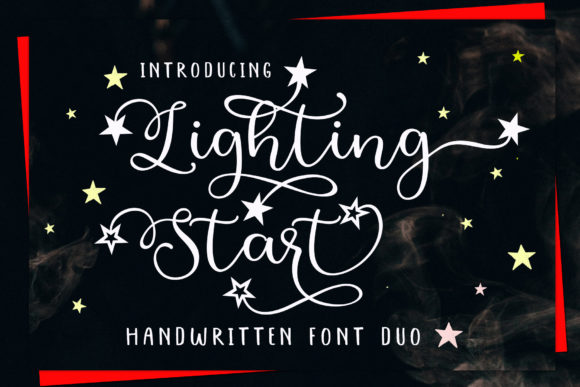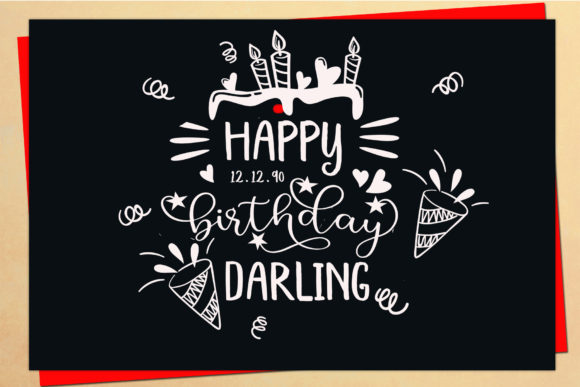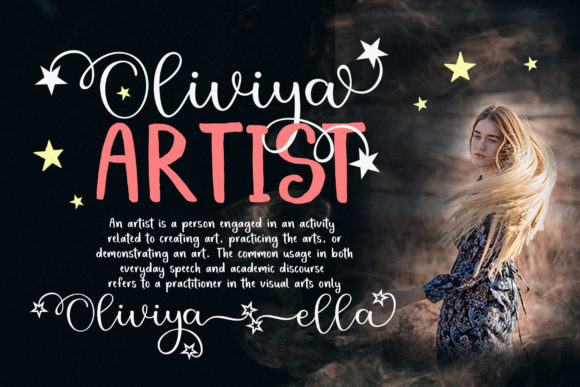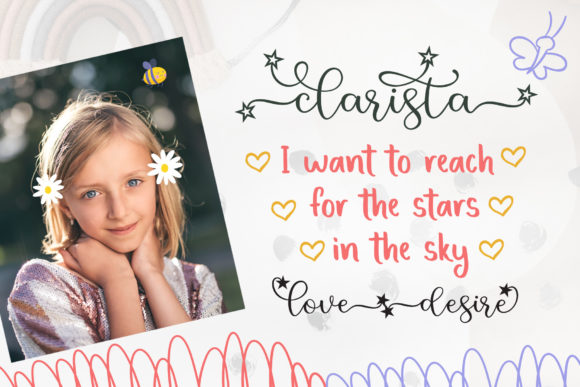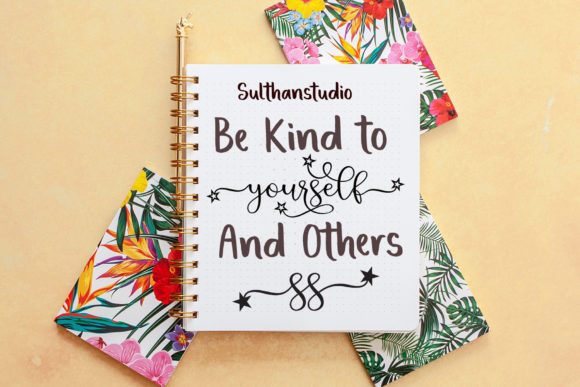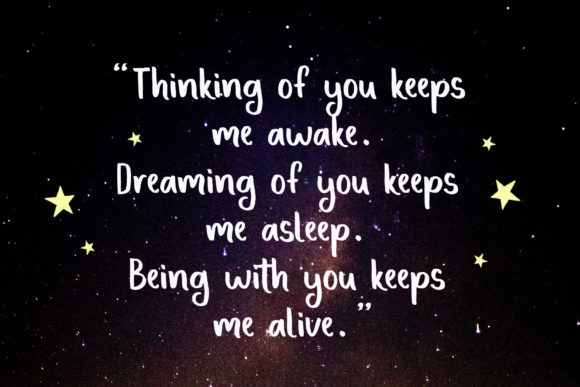
Lighting Start Font
About Lighting Start Font
Lighting Start is a highly detailed and magical script font that exudes elegance and class. This font was particularly crafted for those who need a beautiful and refreshing look to their designs. Lighting Start is PUA encoded which means you can access all glyphs and swashes with ease!